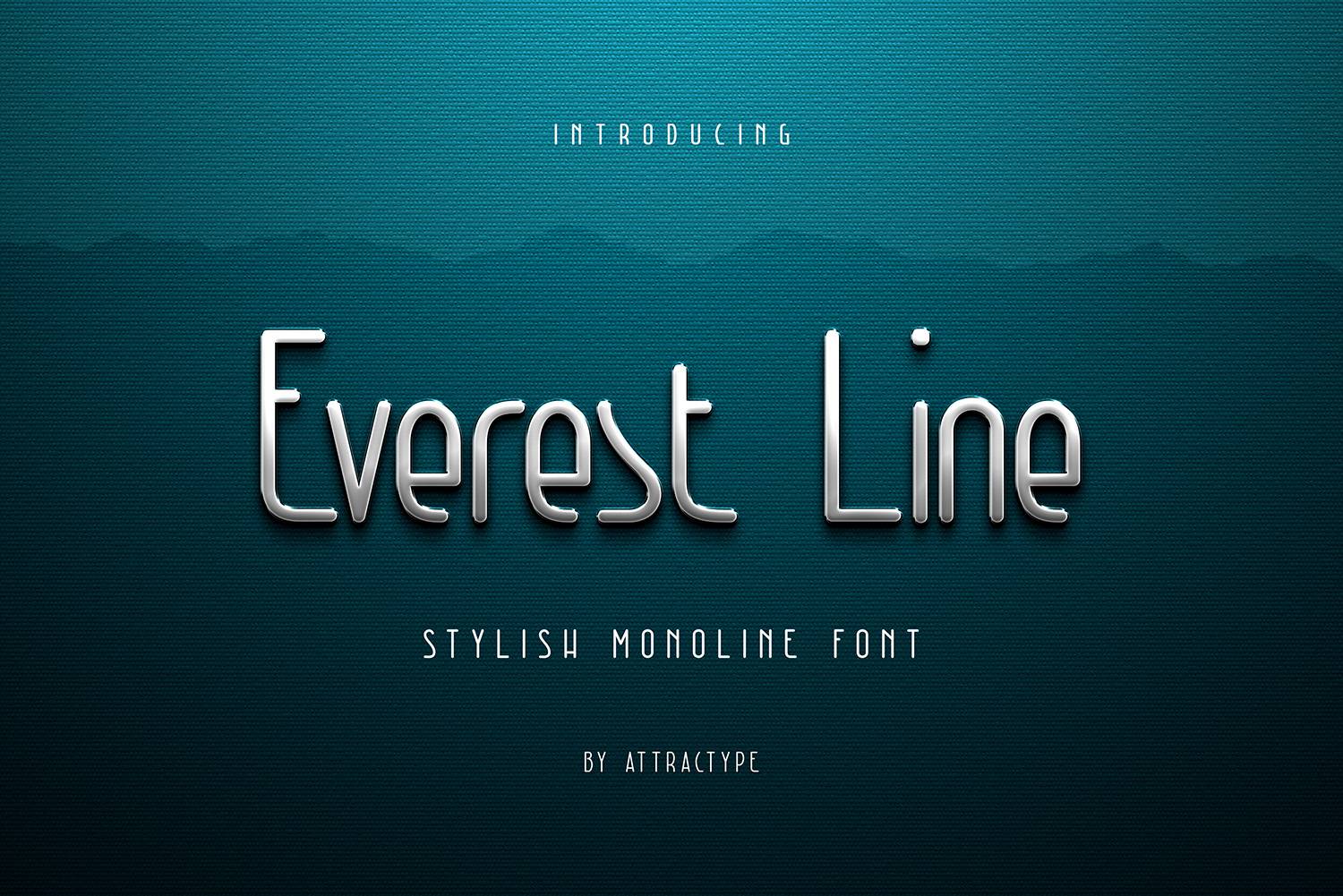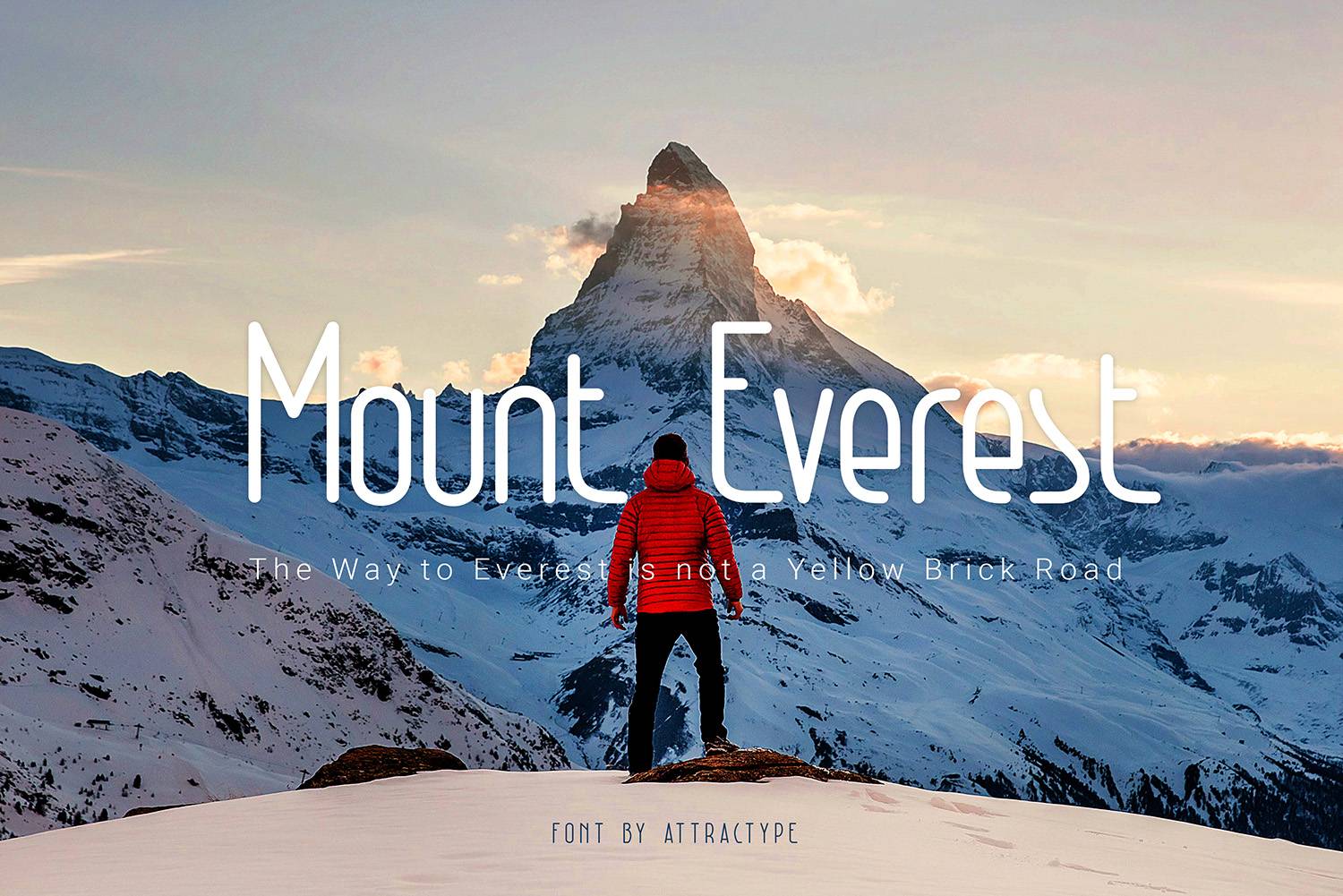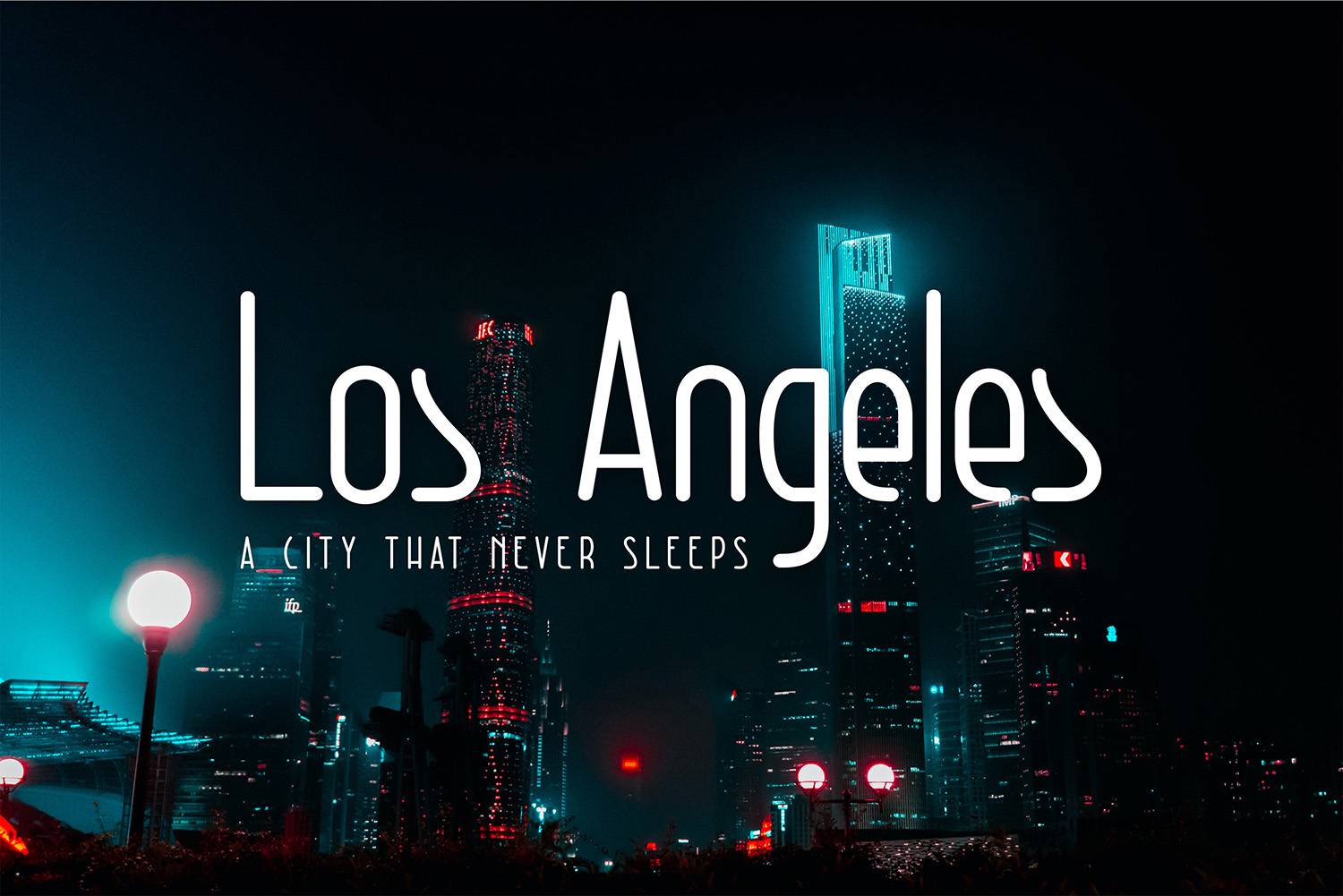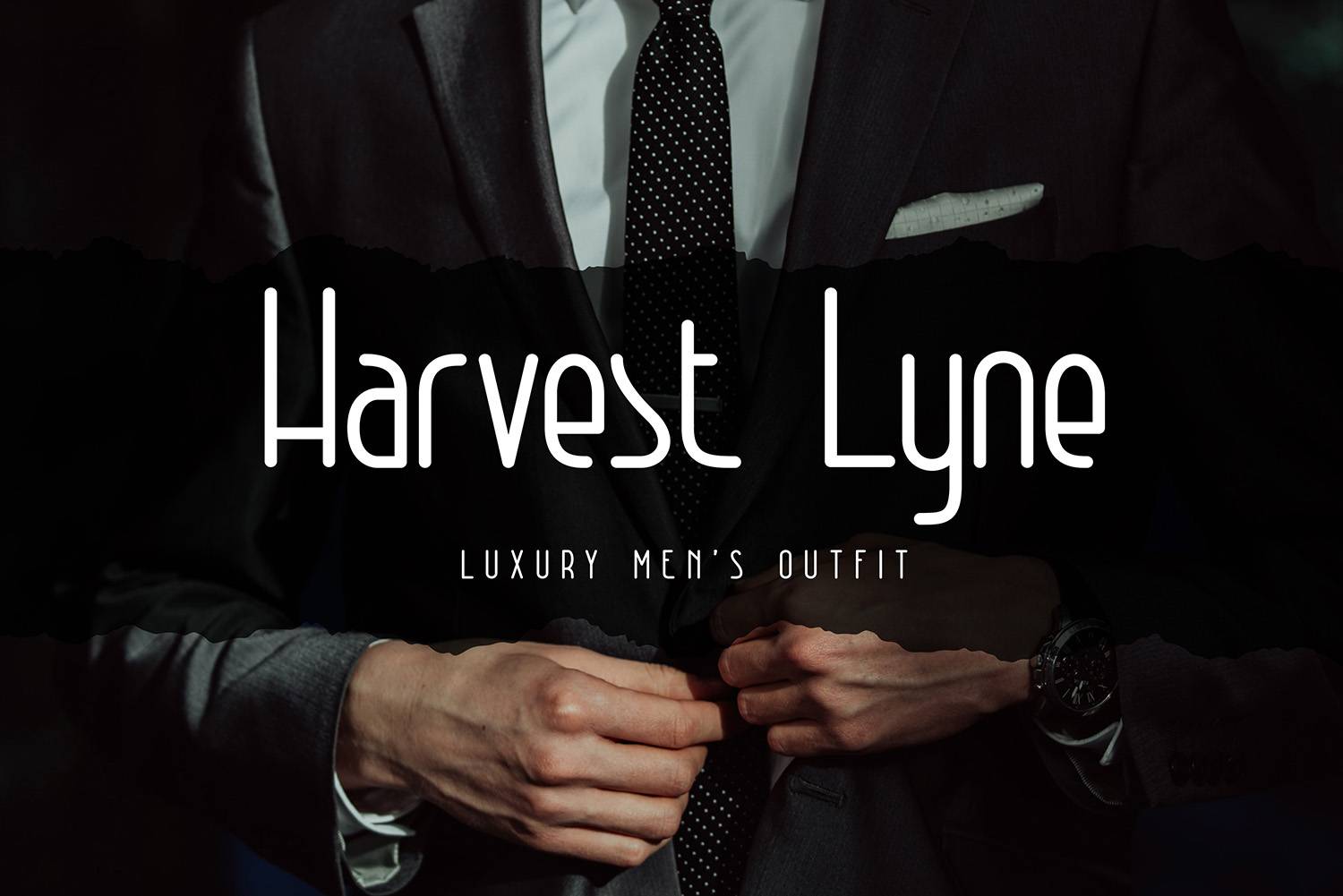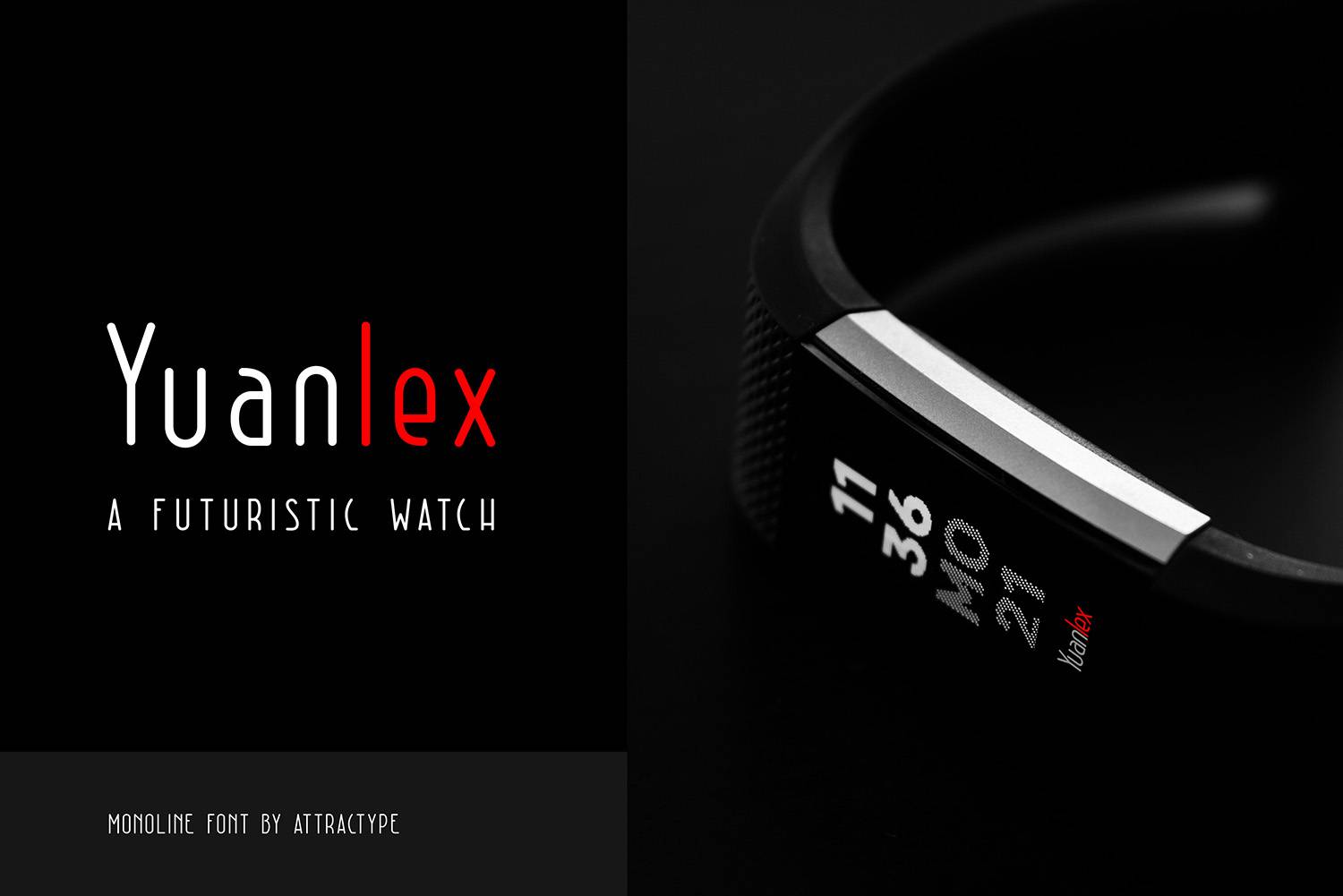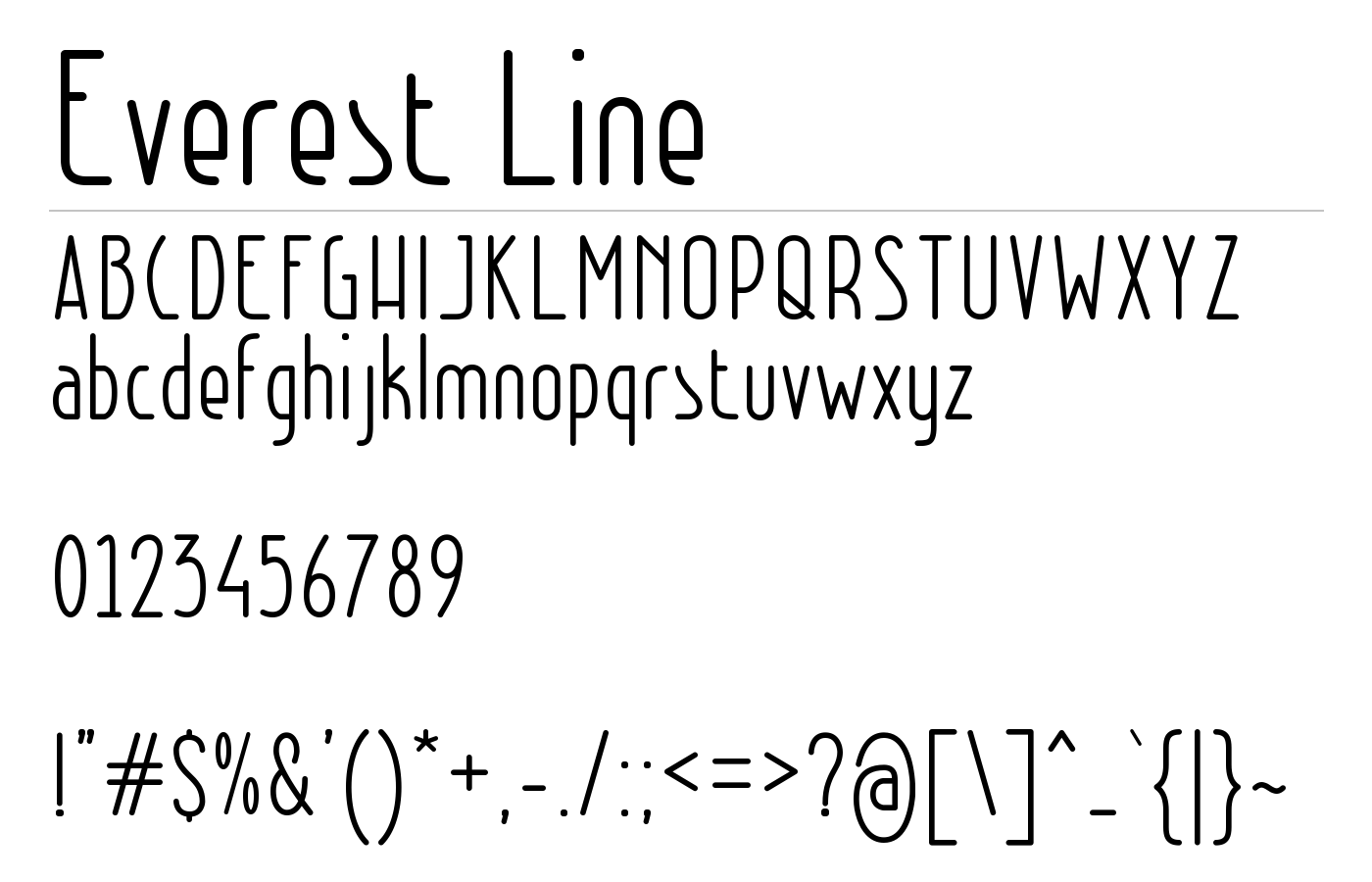
Everest Line is a sleek, narrow sans serif font with a modern and minimalist feel. Its tall, thin letterforms and consistent stroke weight give it a clean and elegant appearance, making it ideal for contemporary branding, headlines, and digital interfaces where space-saving and clarity are essential. This font works especially well in stylish, tech-savvy, or innovative contexts that benefit from a refined yet approachable look.
Everest Line Font